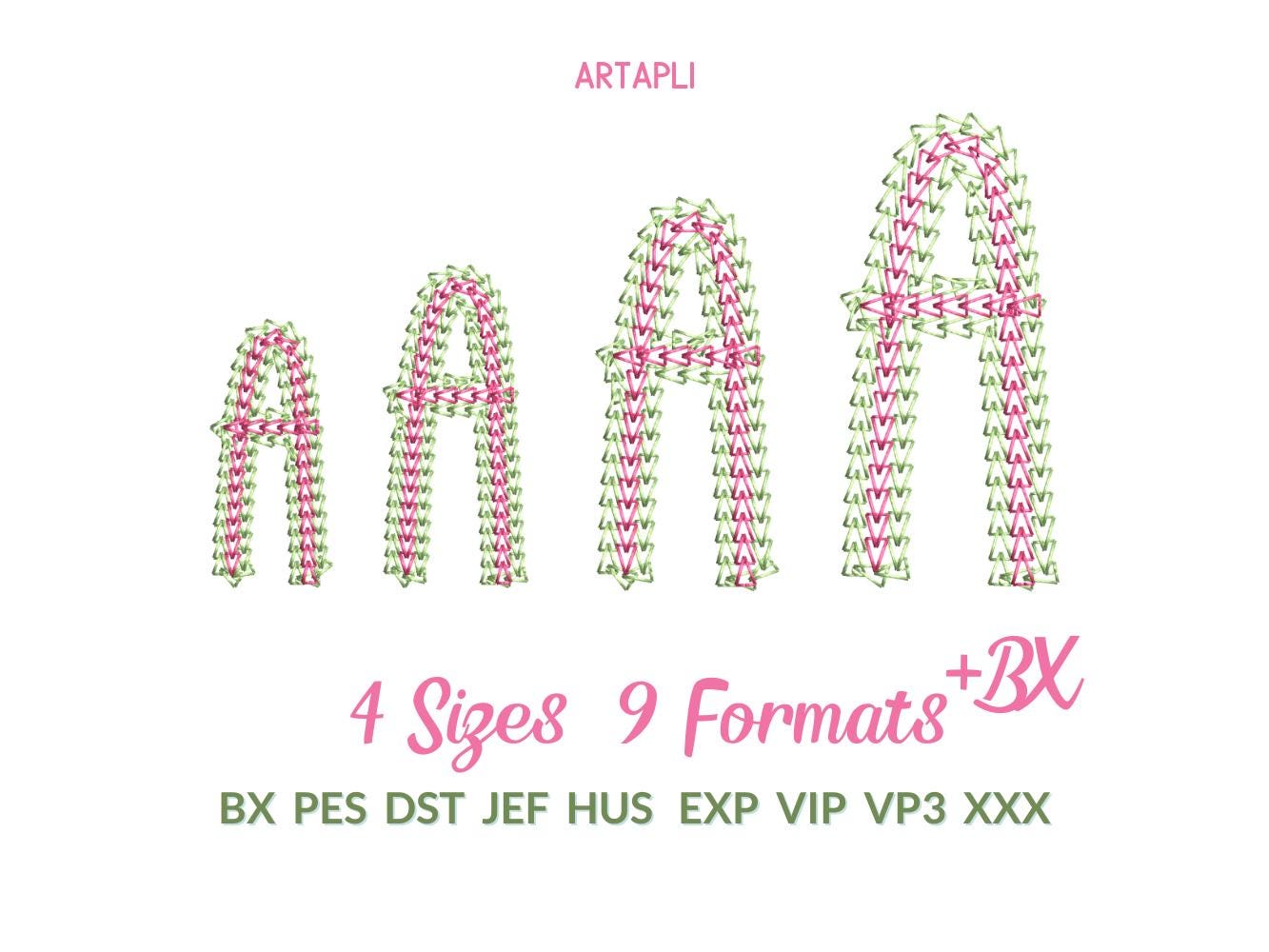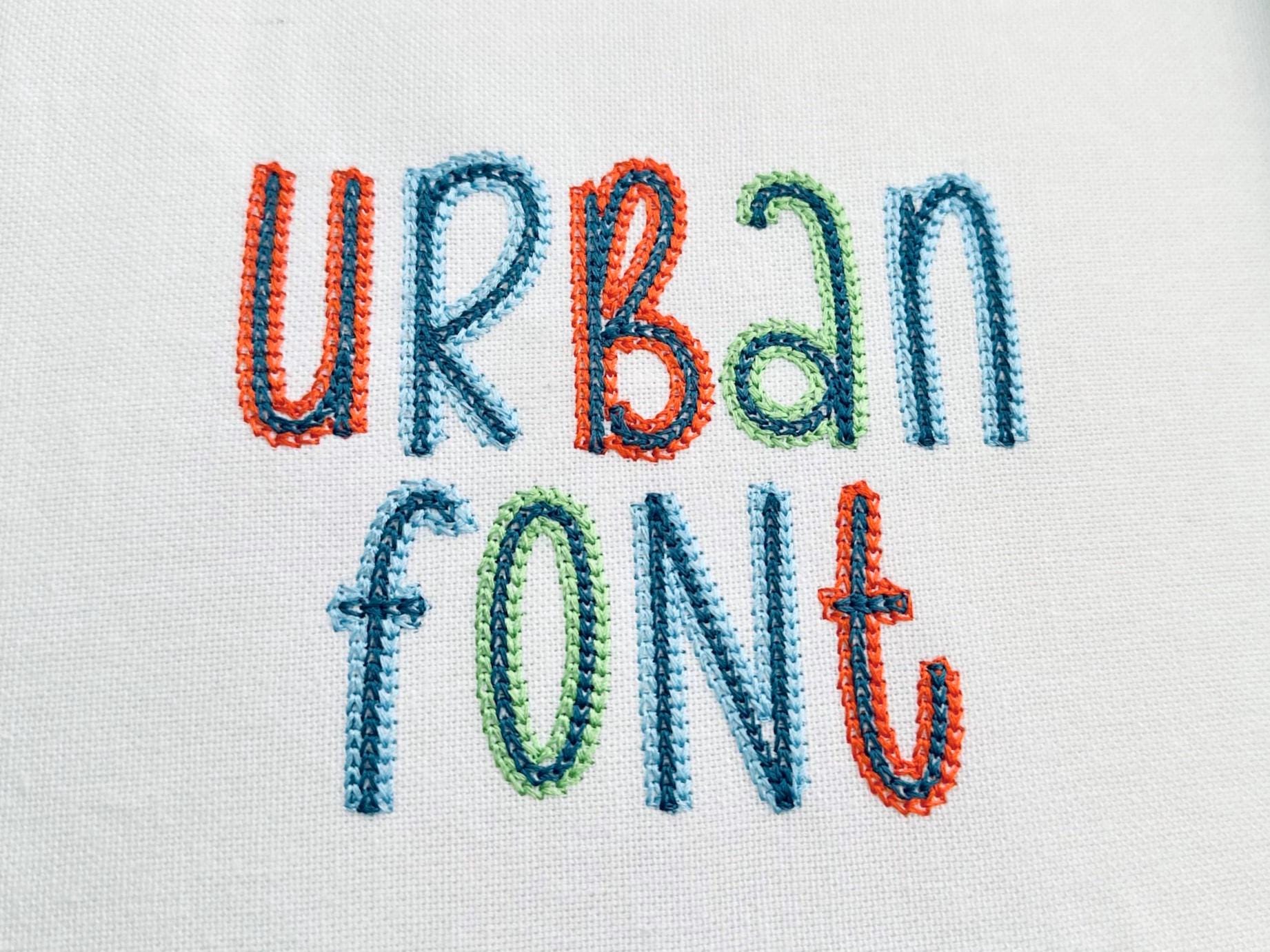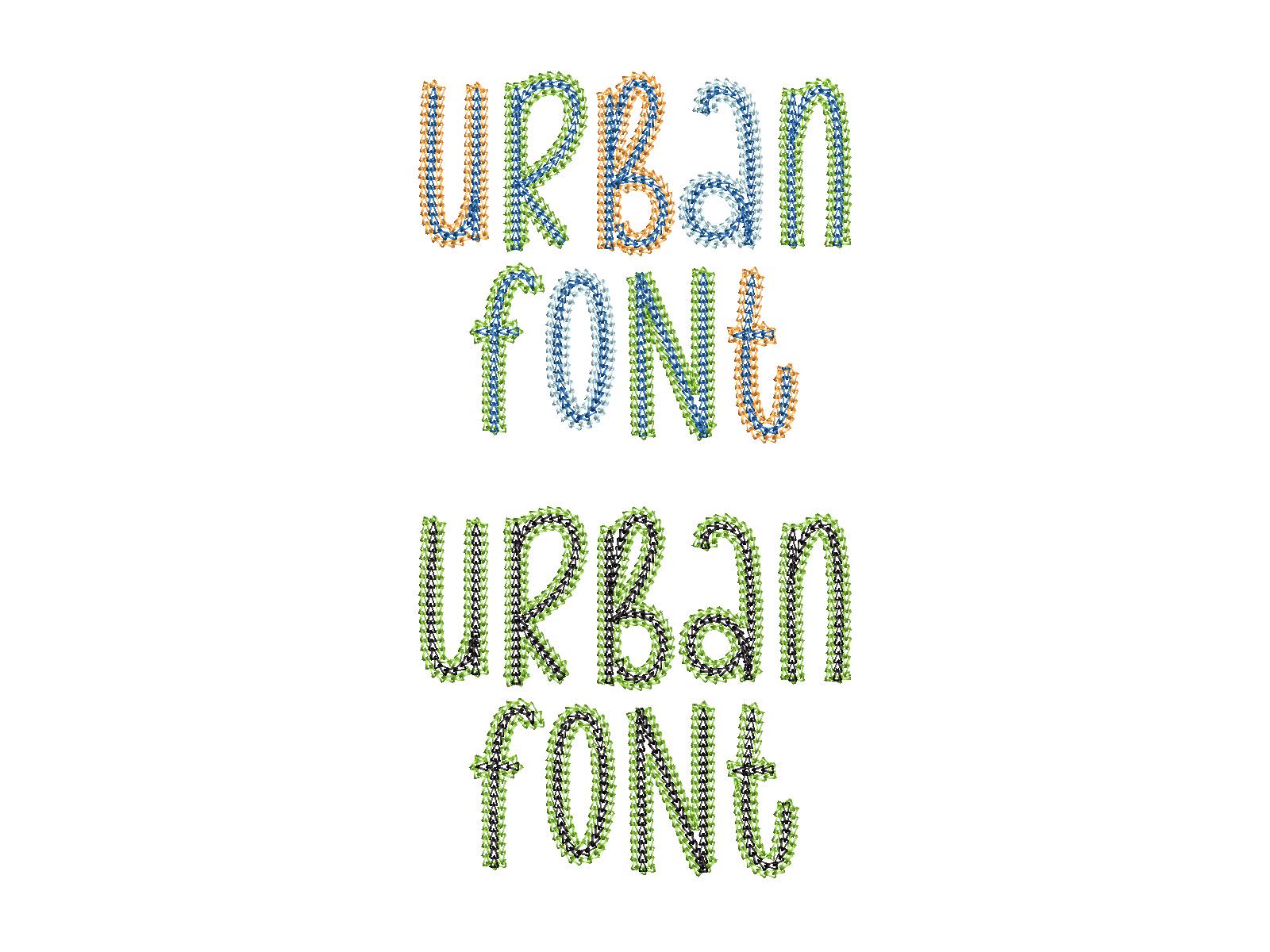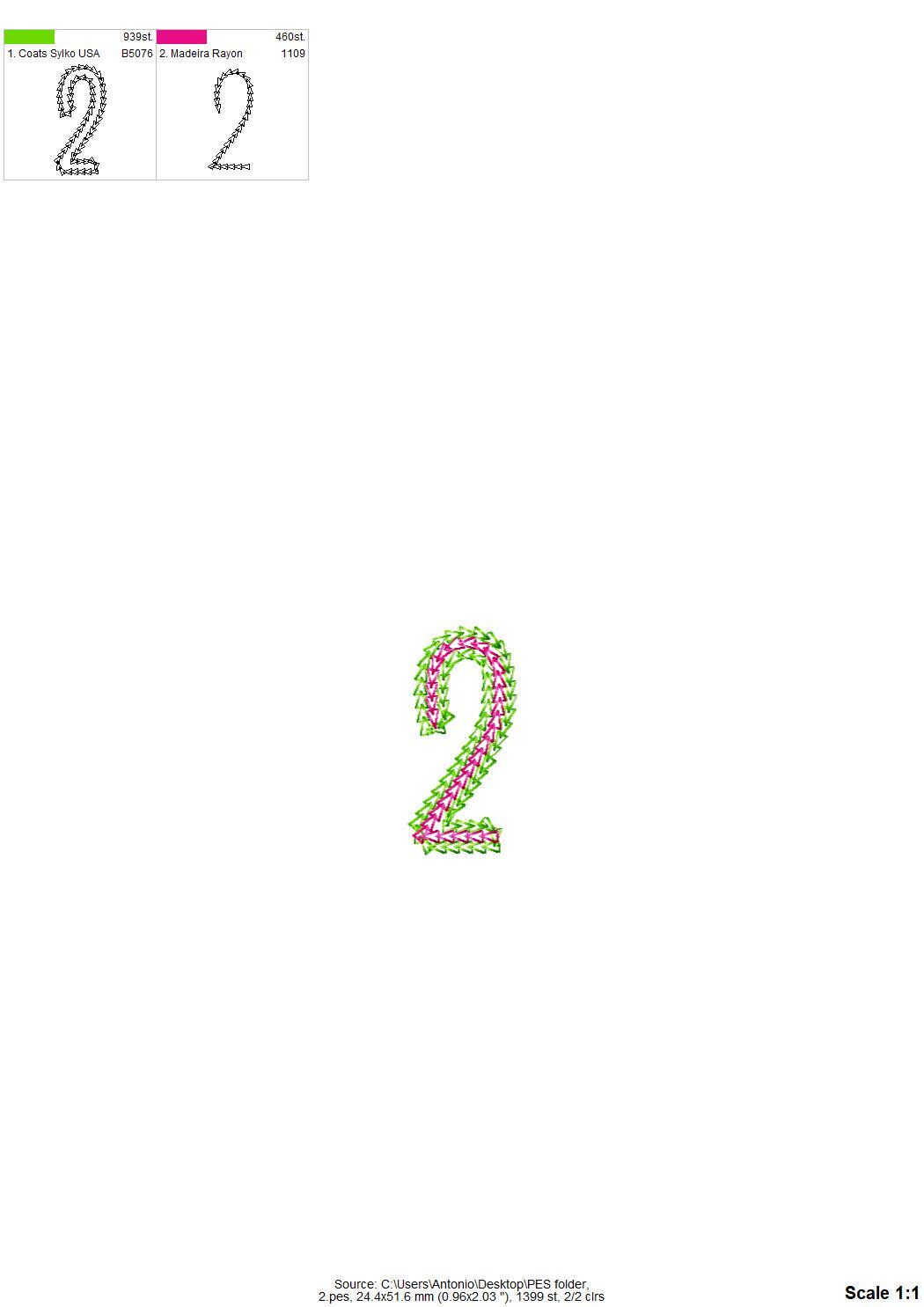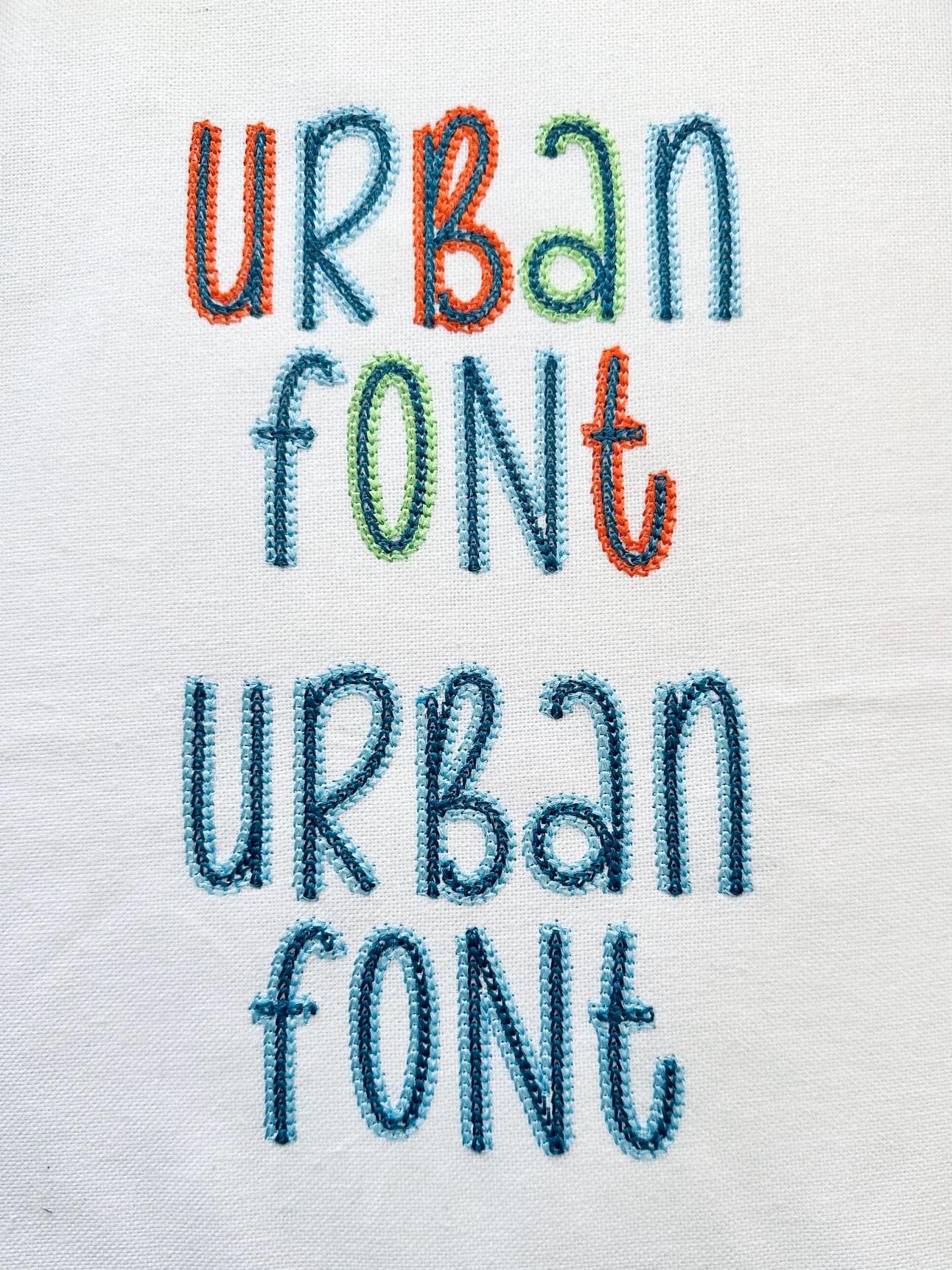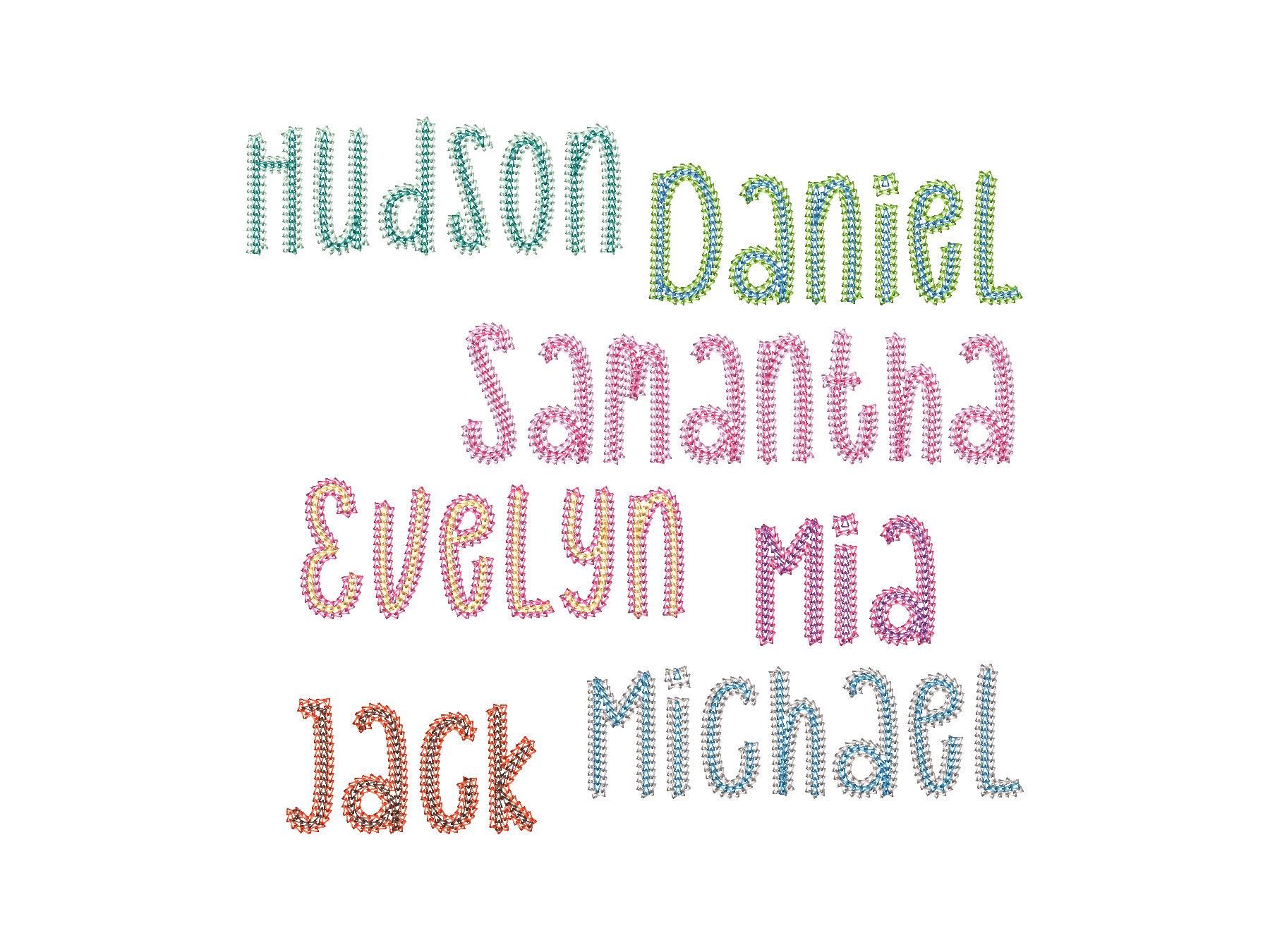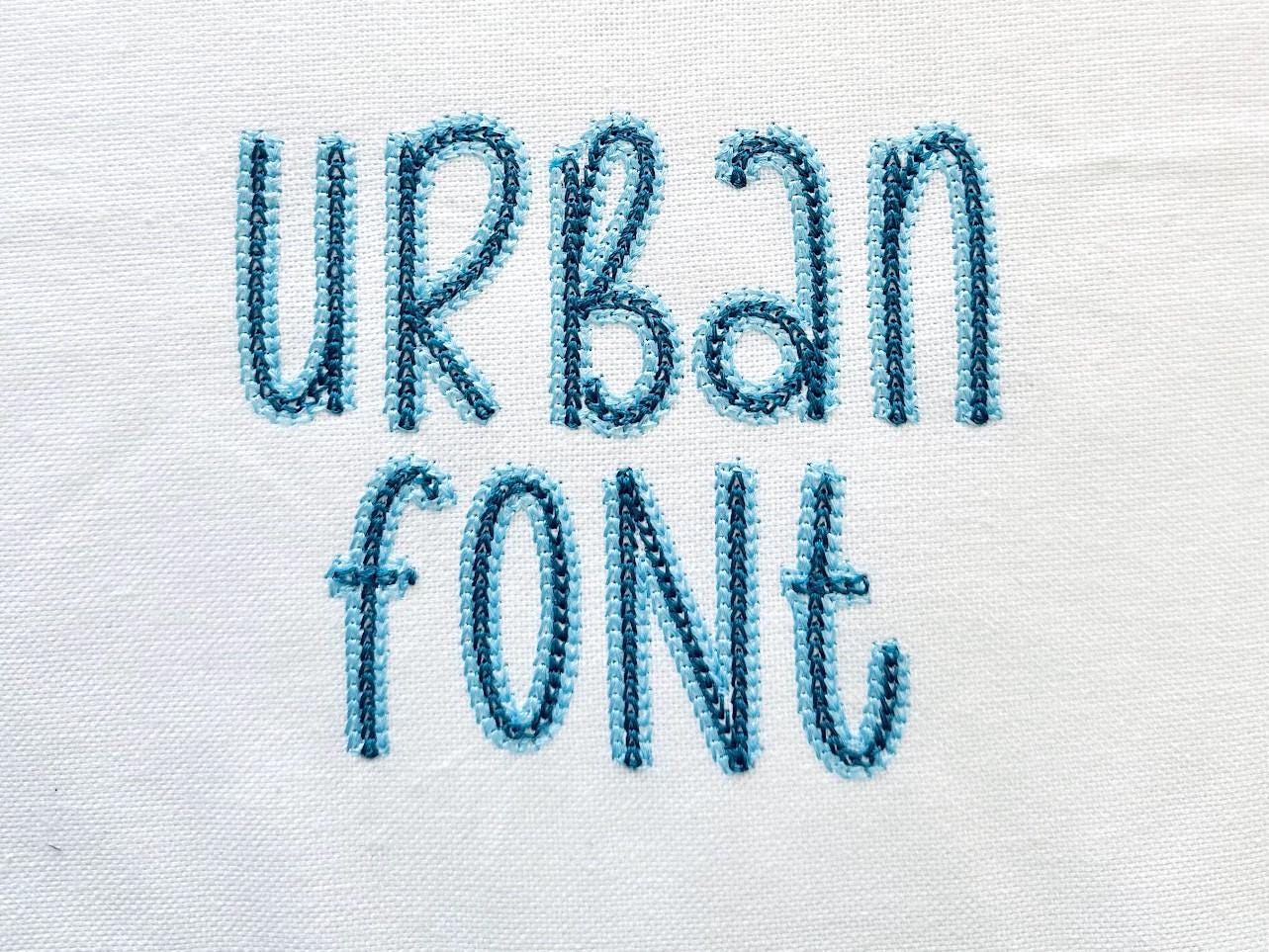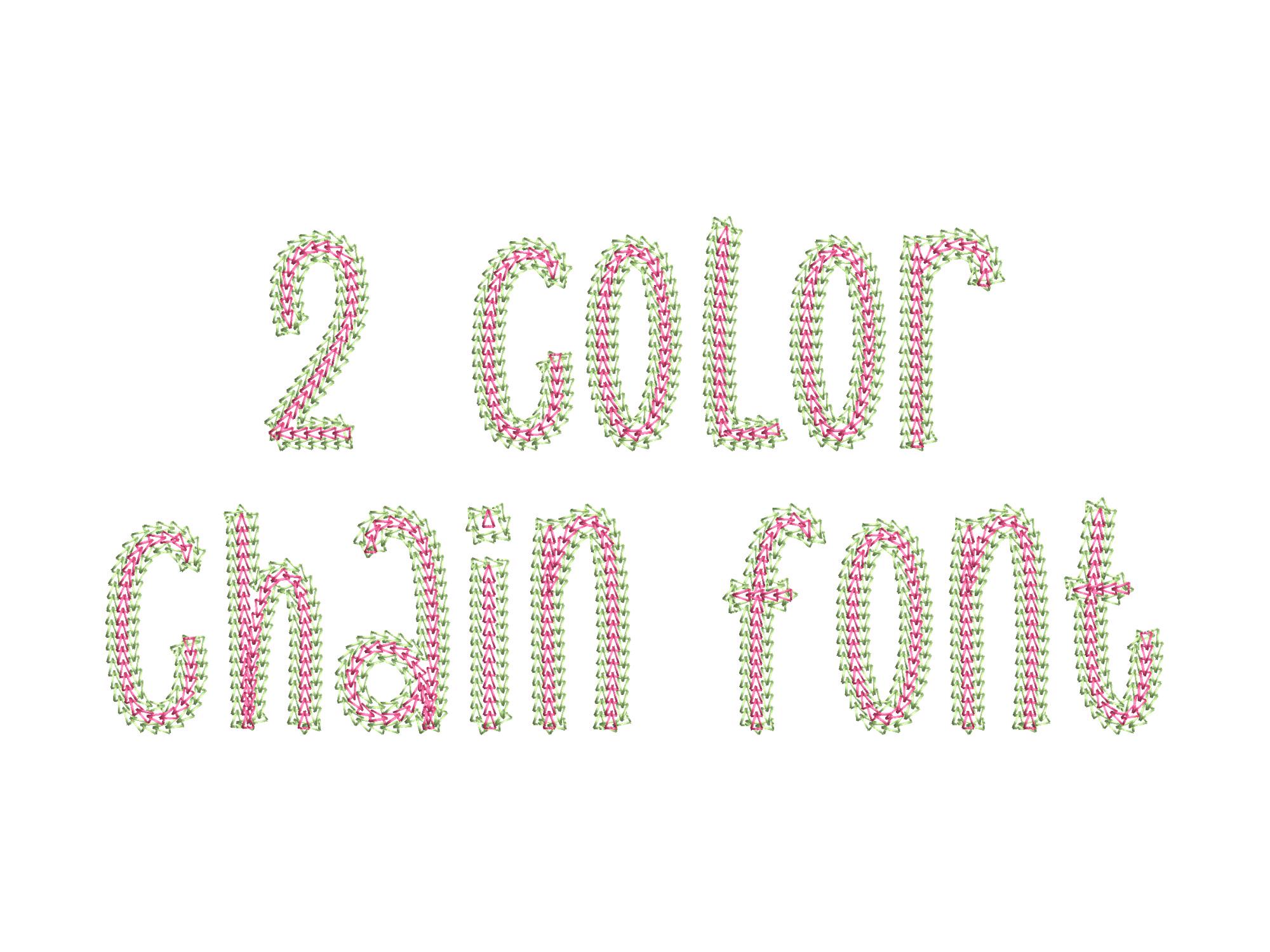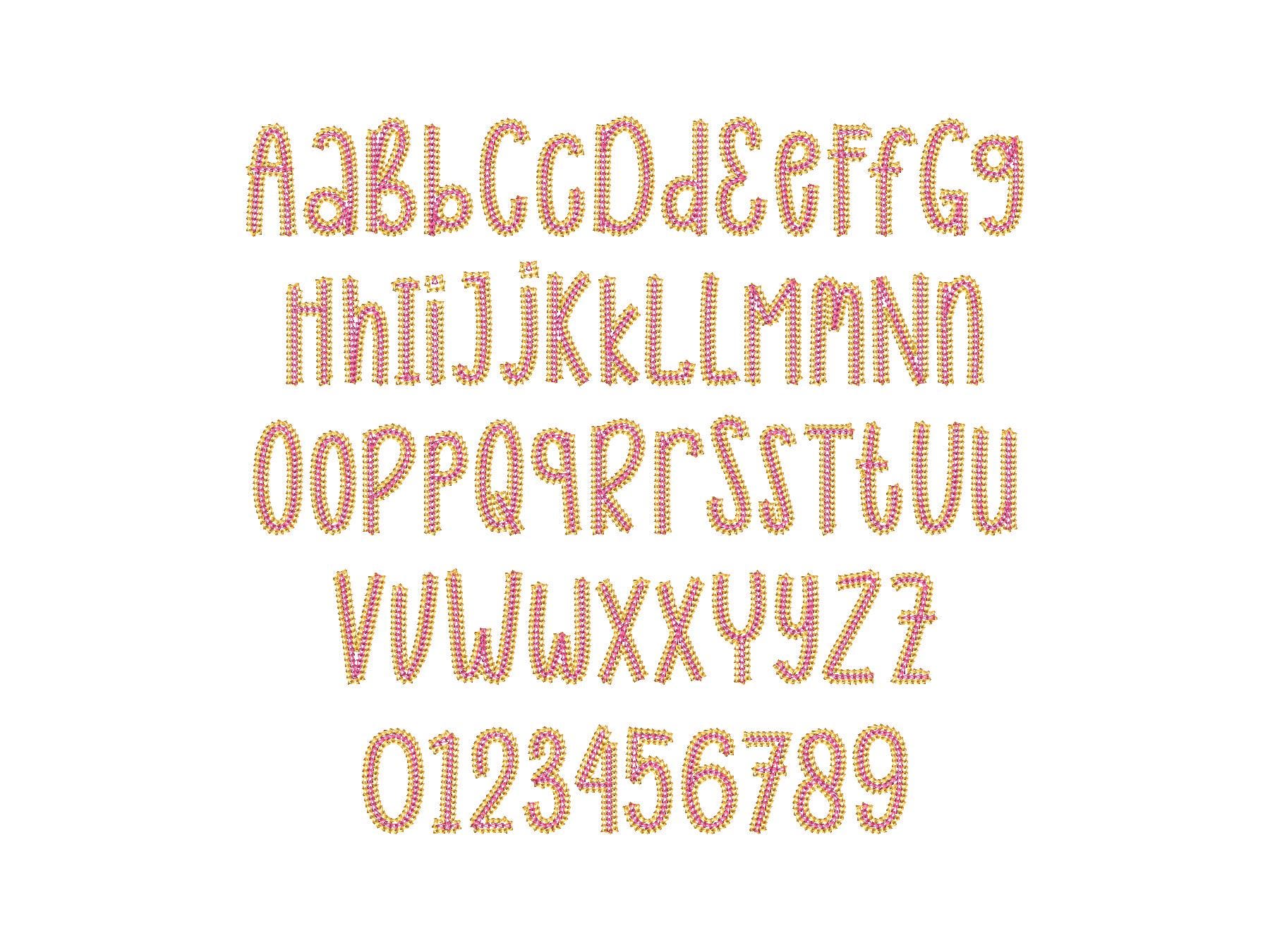
2 Color Chain FONT Urban light chain stitch outline alphabet machine embroidery designs letters multiple mini sizes 1.4 to 2.6 inch BX incl
Whole alphabet A-Z uppercase and lowercase letters, and numbers 0-9.